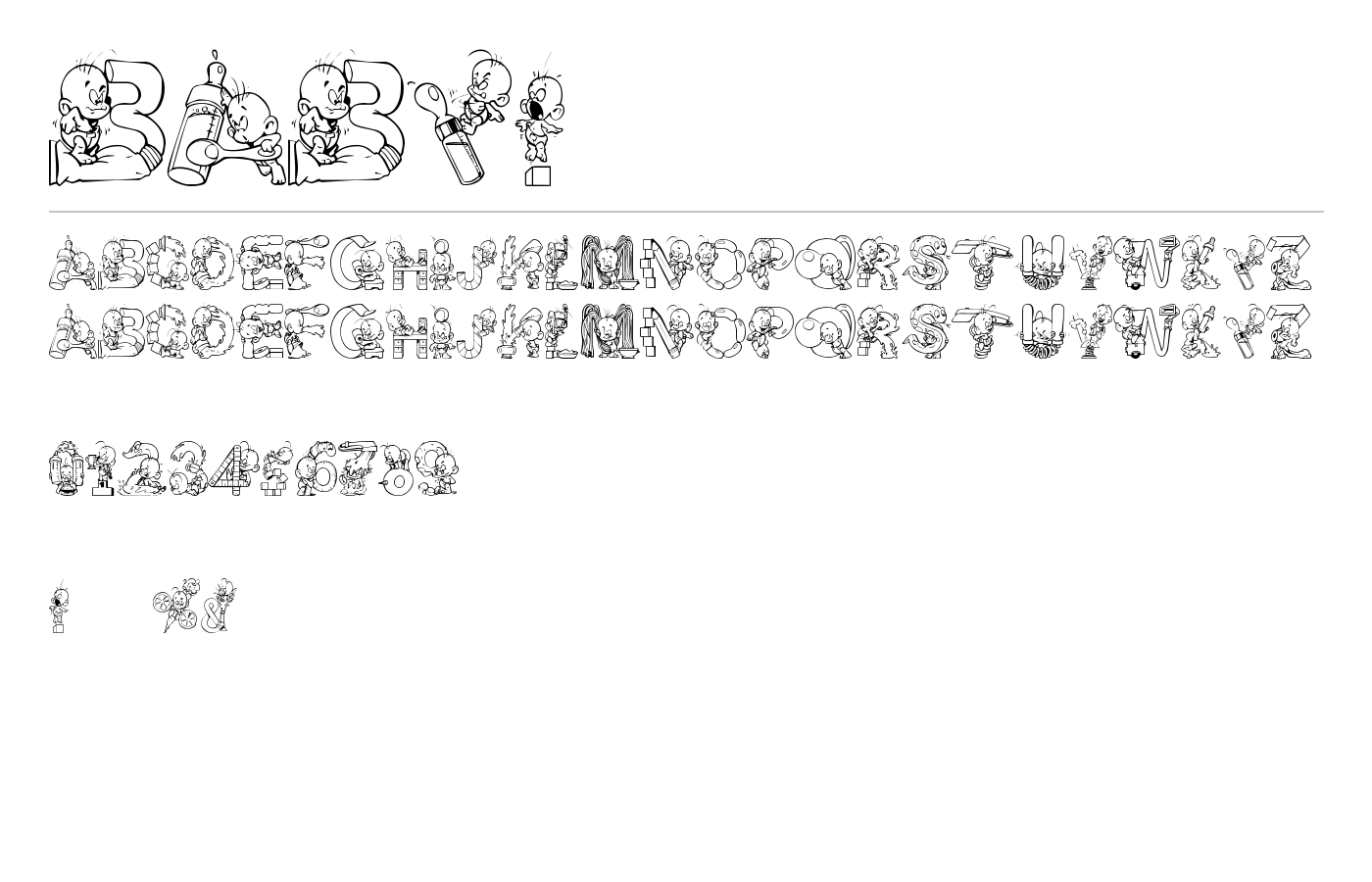
Baby! Font is a playful and whimsical decorative font featuring lively baby characters interacting with each letter, creating a fun and unique visual style. Perfect for children's books, nursery designs, or playful branding, this font adds a cheerful and charming touch that captures attention with its inventive and detailed illustrations. Its lighthearted personality makes it ideal for projects aiming to convey innocence and joy.
Baby! Font